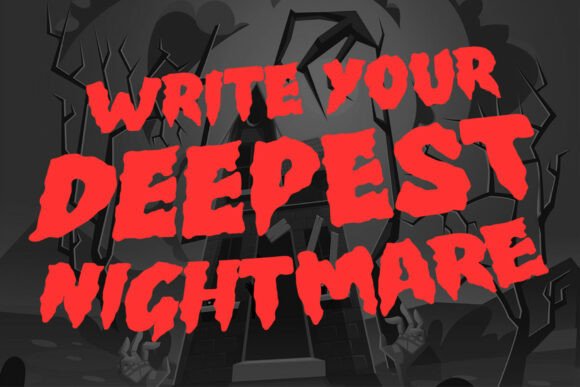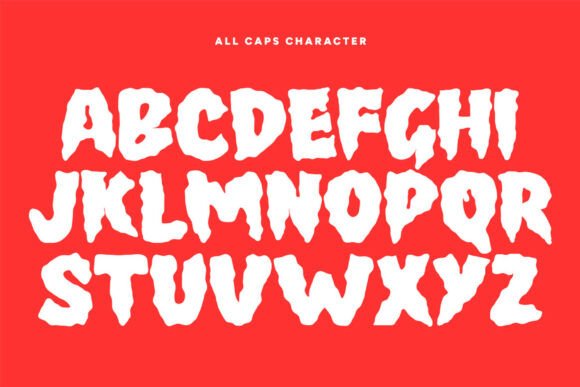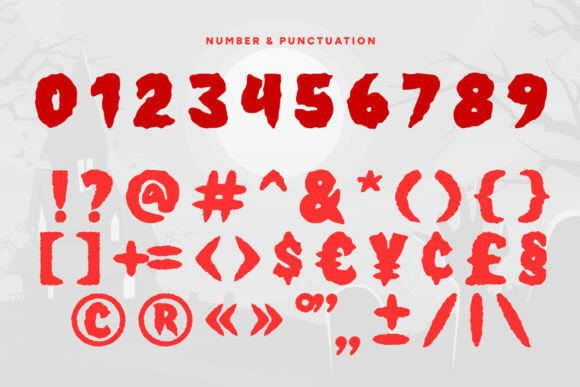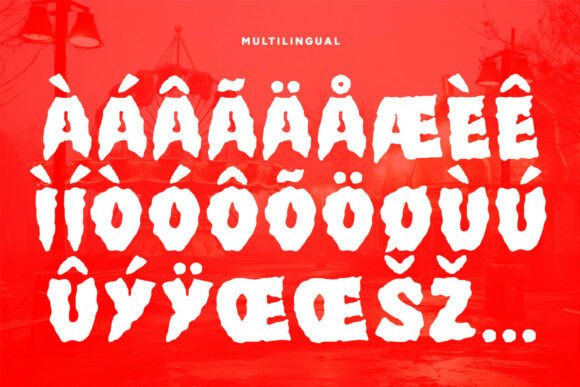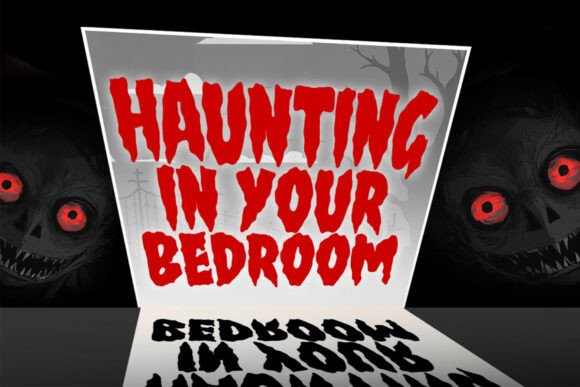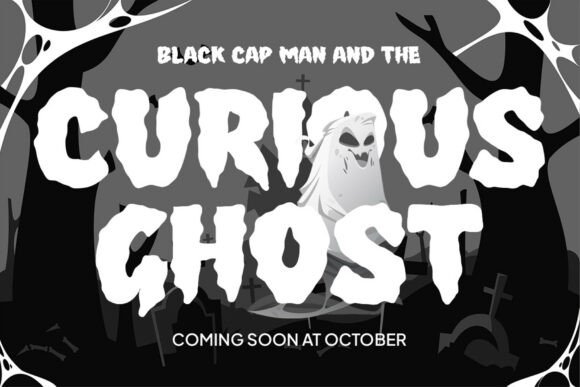
Introduction to Ghost Baster Font
Introducing **GHOST BASTER** – Scary Bold Horror Font **GHOST BASTER** is a bold and spooky display font created to bring a terrifying atmosphere to your design projects.
With its bloody strokes, scary shapes, and horror-inspired details, this typeface is perfect for any design that needs a frightening and dramatic look Ideal for Halloween posters, horror movie titles, spooky branding, event promotions, game designs, and social media content, **GHOST BASTER** ensures your message stands out with a chilling vibe.